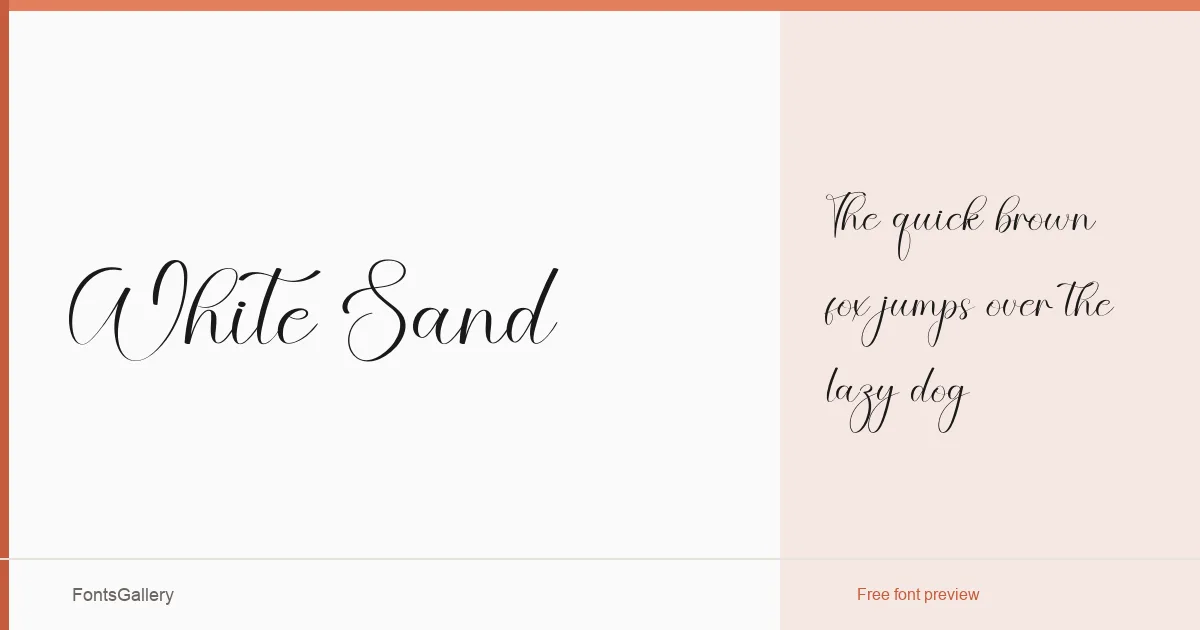
About White Sand Font
White Sand is a graceful script typeface that exudes elegance and romance, making it a standout choice for projects that demand a refined, luxurious touch. Its flowing letterforms and classic sensibility bring a timeless quality to any design it graces. This font strikes a beautiful balance between sophistication and warmth, lending itself naturally to intimate and upscale creative work alike.
White Sand features the sweeping, connected strokes characteristic of elegant script typography, with letterforms that evoke a sense of classic romance and luxury. Each character carries a fluid grace that feels both polished and personal, reflecting a mood that is simultaneously timeless and refined. The overall aesthetic is one of understated opulence, making every word set in this typeface feel intentional and beautifully composed.
White Sand shines brightest in applications such as wedding stationery, invitation cards, greeting cards, and logo design where an elegant, romantic tone is essential. It also performs beautifully in social media graphics where a touch of luxury and classic charm is desired. For a compelling typographic combination, pair White Sand with Aresink for a cohesive script-forward layout, or contrast it with the clean neutrality of Helvetica to create a sophisticated and well-balanced design.